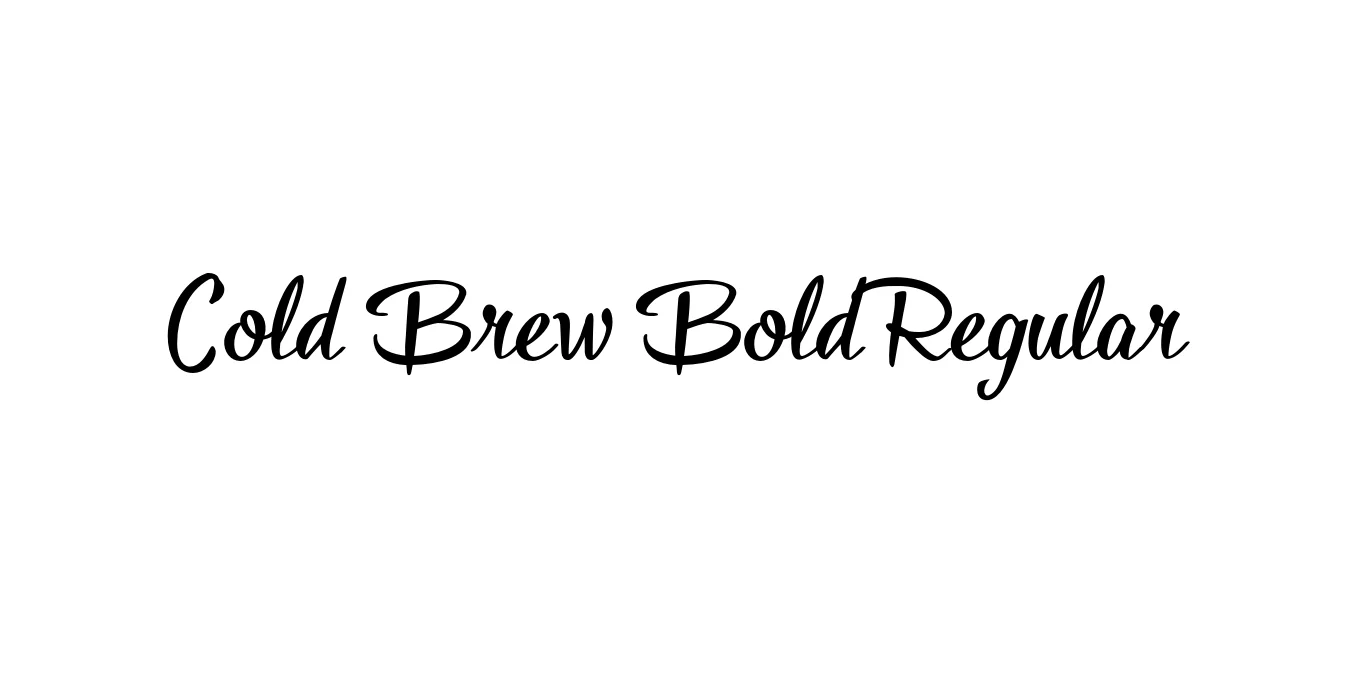
Cold Brew Bold Regular
Cold Brew Bold Regular emerged from the modern artisan design movement, drawing inspiration from the bespoke hand-painted signage found in independent coffee houses and craft breweries. Developed to bridge the gap between traditional brush calligraphy and digital versatility, the font captures the raw, tactile energy of ink on textured paper. It was designed to provide a warm, approachable aesthetic that resonates with the slow-living and organic lifestyle markets, making it a staple for designers seeking a human touch in a digital-first world.
Technically, Cold Brew Bold Regular features a robust visual weight characterized by its deliberate stroke irregularities and high-contrast terminals. The x-height is generously proportioned, ensuring legibility even at smaller display sizes, while the organic curves maintain a fluid rhythm. The letterforms exhibit a slight slant and varying baseline heights, which mimic the natural imperfections of hand-lettering. This weight is particularly effective for high-impact headlines where its textured edges and bold presence can command attention without sacrificing the warmth of its handcrafted origins.
Cold Brew Bold Regular Best Uses
Ideal for coffee shops, cafes, and organic product packaging.
Great for high-impact Instagram quotes and lifestyle graphics.
Perfect for artisanal or rustic brand identities requiring a personal touch.
Effective for headlines in print media where a friendly, bold tone is needed.